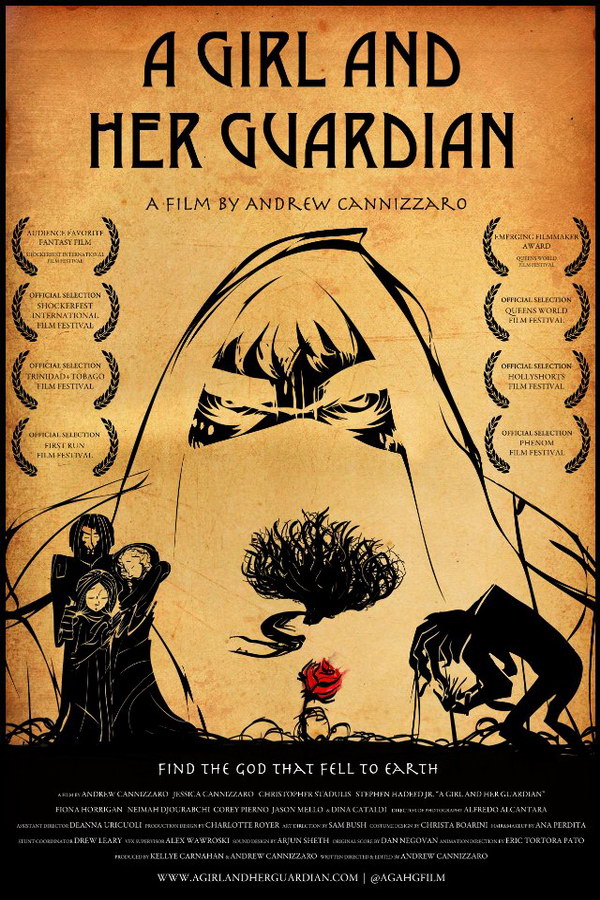
A Girl and Her Guardian Font
AdventureA Girl and Her Guardian is a 2012 short adventure movie directed by Andrew Cannizzaro. The story centers on a young girl named Sarah who is on a quest to bring back the goddess Onatah back to life as the Earth is dying.
In the poster, the title A Girl and Her Guardian is in Quaint Gothic, an art nouveau themed font. More details about the typeface can be found here.